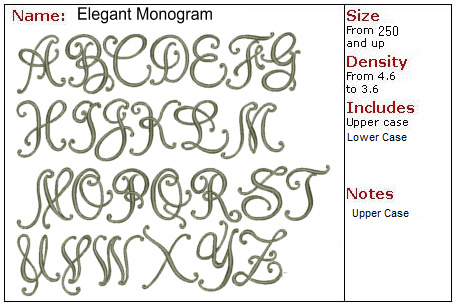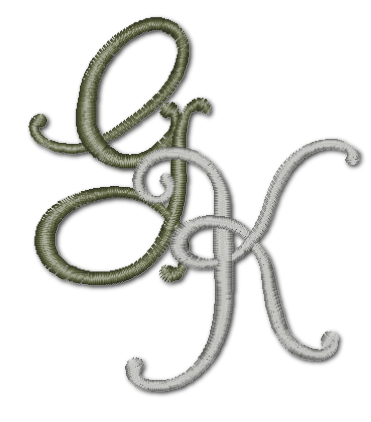
Elegant Monogram
Very Similar to Old English Monogram, this font is most suitable for Single or 2 letter monograms. Try changing the color of the 2 letters to complimentary colors for a more interesting effect.
Style : Puffy Font